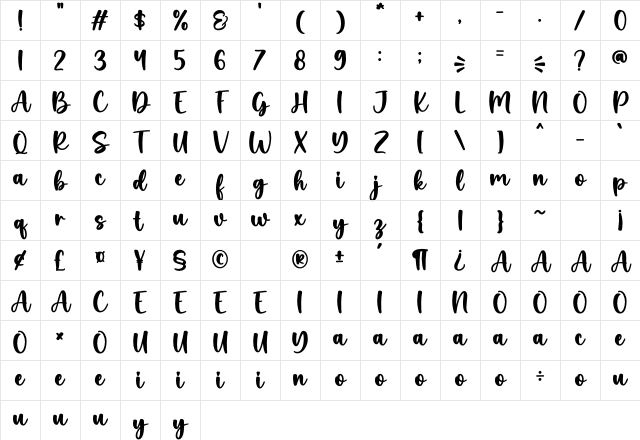
Sprinkles Regular Free Font
Sprinkles Regular
Foundry: Graphix Line Studio
Designer: Aldi Raya Pradipta
Design Context for Sprinkles
Sprinkles is a composed and adaptable typeface that performs quietly and consistently across a wide range of design contexts.